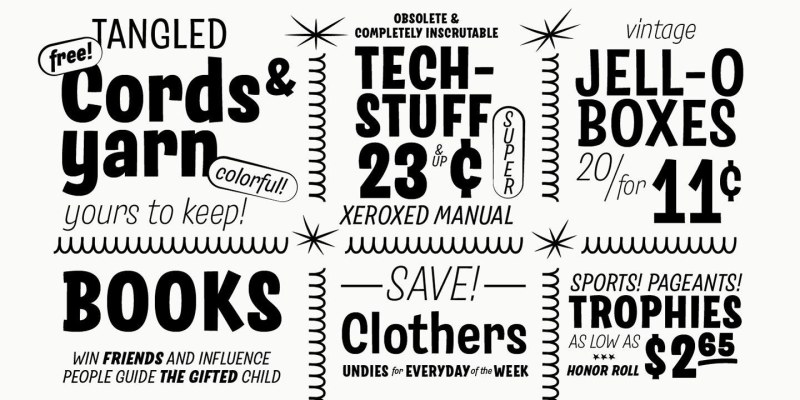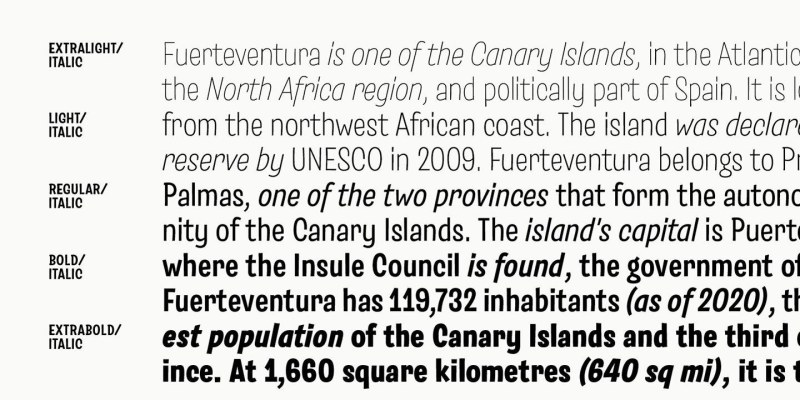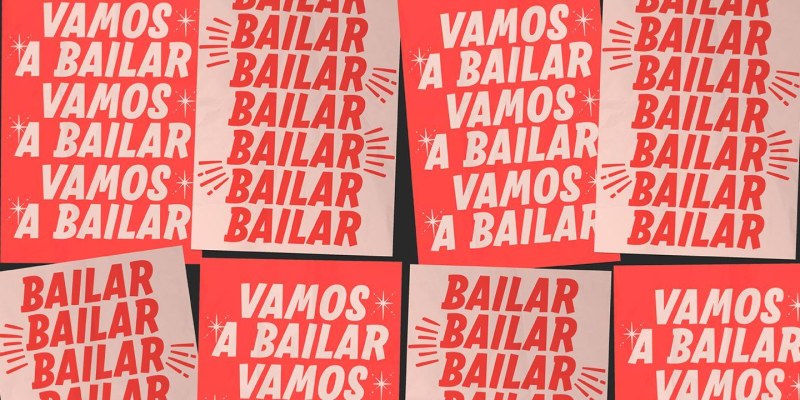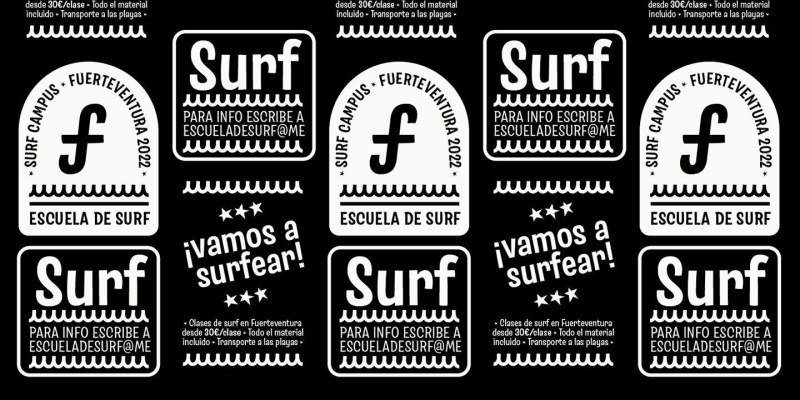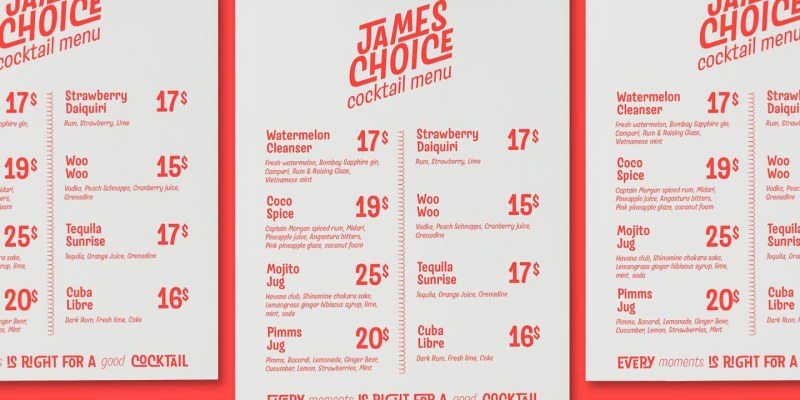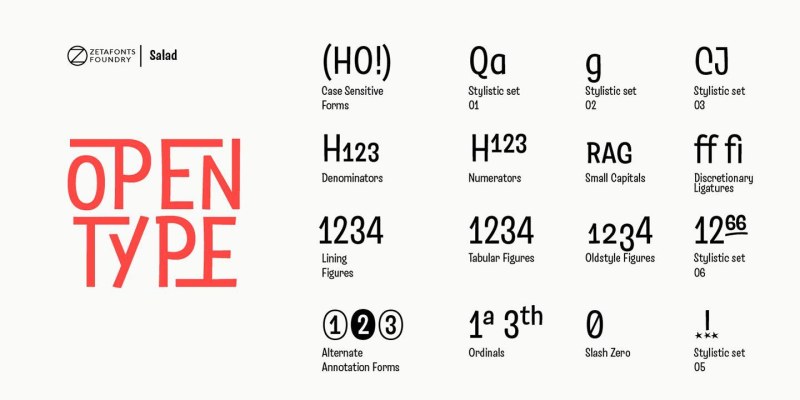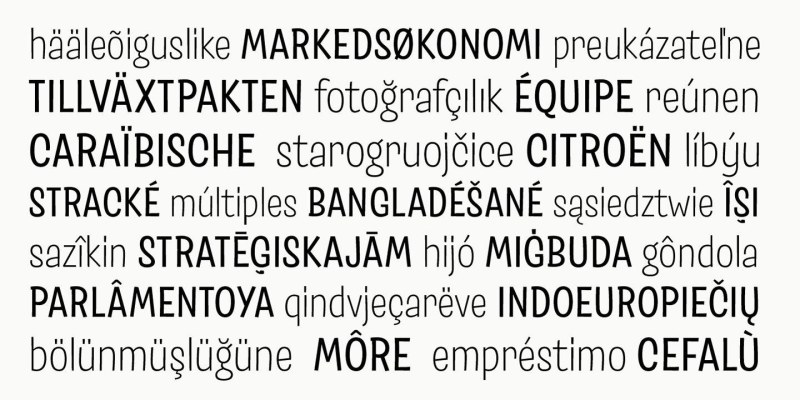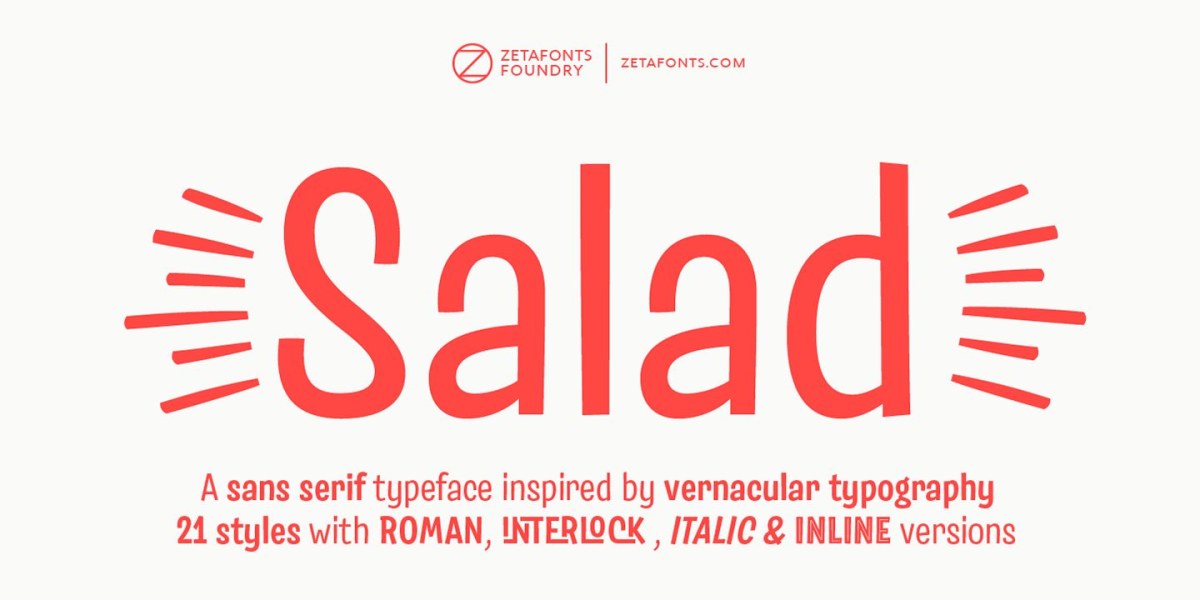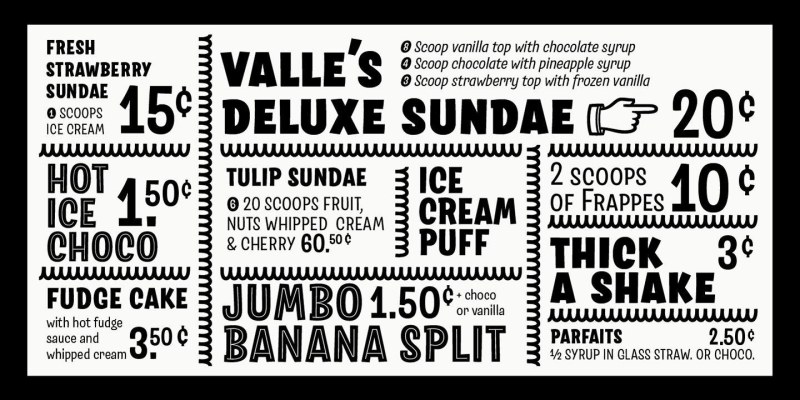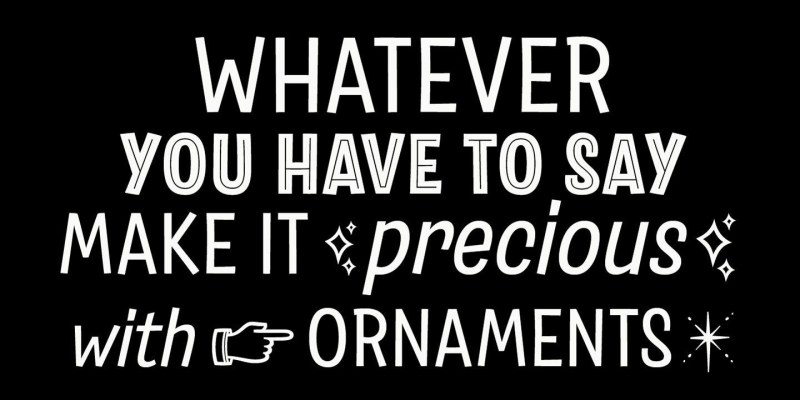
Salad Font Family
The island of Fuerteventura is more known for its white sand beaches and windsurf-friendly constant winds than for its typographic marvels. Still, it’s on the walls of a ballroom next to its white-sand beaches that Debora Manetti found the hand-painted letterforms that she took as inspiration for her typeface Sala de Fiestas. The resulting font was a condensed sans serif full of curious details and a jumpy latino vibe that many years after still keeps its freshness and vernacular charme.
Francesco Canovaro took the original typeface as a starting point for a grand tour into sign-painter aesthetics, developing a reboot of the original into a new type family: Salad. While being faithful to the original proportions and feeling, Salad provides extreme versatility through its five-weights range, its extended charset and its set of Open Type features including stylistic sets, alternates, positional numerals, small capitals and case sensitive forms.
While the roman family with its italic counterpart provide a good workhorse tool for informal branding, packaging and editorial projects, the interlocking and the inline weights add additional possibilities for display purposes. This is enriched by the inclusion in the typeface of a set hand-drawn decorative dingbats that further complement the sign painting vibe of the family. All Zetafonts expertise in handmade lettering, typographic design and water sports has been put to test to assure Salad is the best typographical alternative to a a trip to Canary Islands!
Salad Font Family is a Handwriting Fonts font that brings a professional and versatile look to your projects. The island of Fuerteventura is more known for its white sand beaches and windsurf-friendly constant winds than for its typographic marvels.